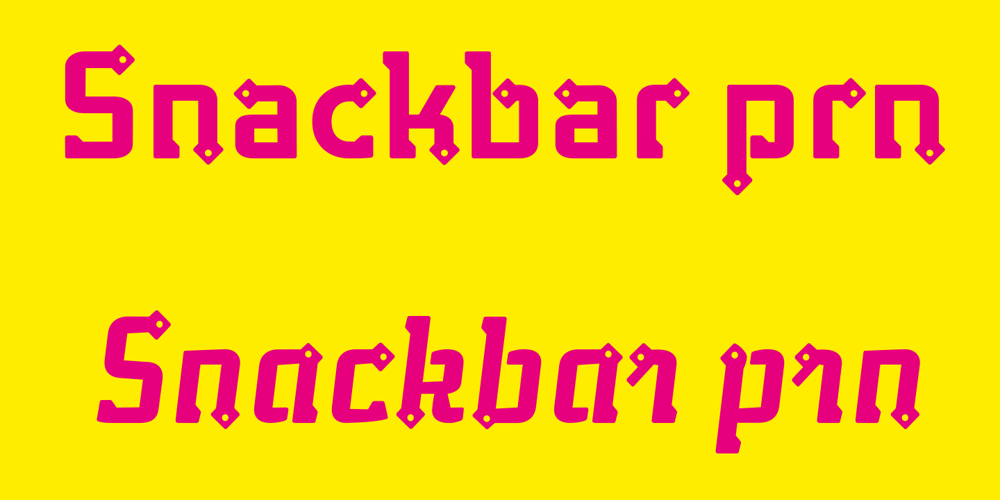
Ps Snackbar Prn
Ps Snackbar Prn font
Ps Snackbar Prn Font Family was designed by Peter Slager and published by Fontopia. Ps Snackbar Prn contains 2 styles and family package options. Snackbar prn is a typeface with a humorous slant. The font has its origins in an art project. It is now made available for design around festifals, parties, invitations, etc.